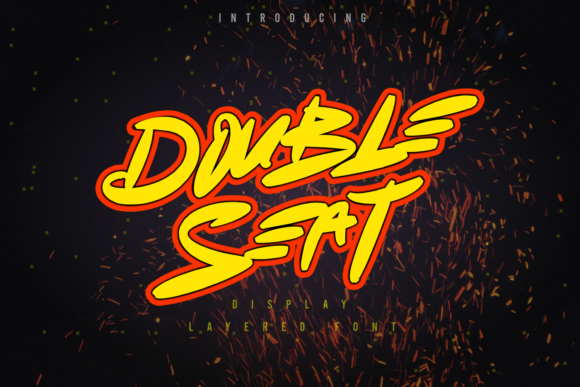
Introducing Double Seat Font, an Urban Edge to Elevate Your Designs
In a world of ordinary fonts, Double Seat Font emerges as a daring display font that captures the vibrant energy of street art. Inspired by the raw aesthetics of graffiti, this font exudes a bold, confident personality that demands attention.
Unleash your creative potential with Double Seat Font, a masterpiece crafted for designers seeking a font that speaks volumes. Whether you're a seasoned graphic artist or a budding entrepreneur, this font will add an edgy touch to your designs, leaving a lasting impression on your audience.
Visualize your designs transformed with Double Seat Font. Imagine your t-shirts adorned with bold, graffiti-inspired typography, attracting the eyes of fashion-forward individuals. Create sportswear that embodies athleticism and energy, leaving a lasting impression on the field or track. Develop logos that command attention, establishing a strong brand identity that resonates with your target audience.
With Double Seat Font, your advertisements will captivate viewers, leaving an indelible mark on their minds. Design clothing that exudes individuality and style, catering to those who dare to stand out from the crowd. The possibilities are endless, limited only by your imagination.
Embrace the rebel within, challenge the norm, and let Double Seat Font amplify your creative vision. Unleash the urban spirit in your designs and watch as they ignite a spark of excitement and intrigue.